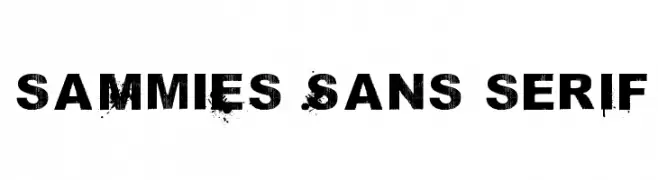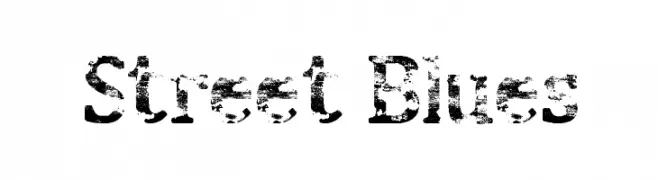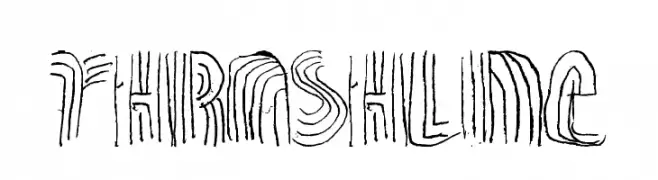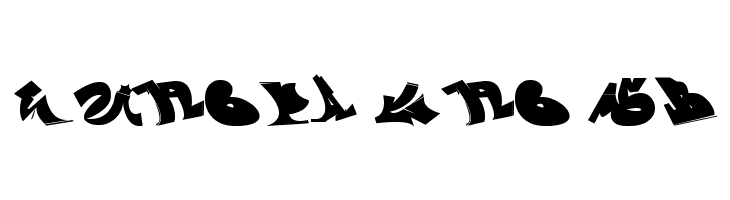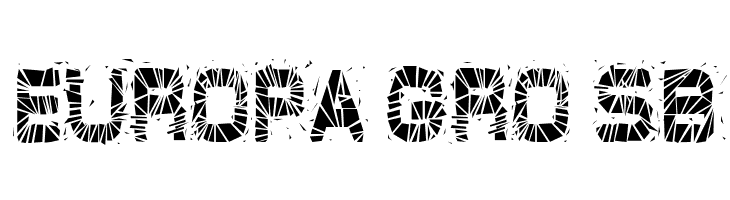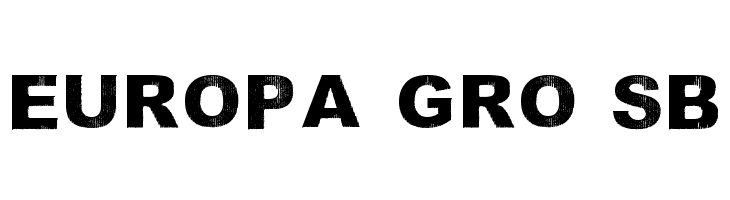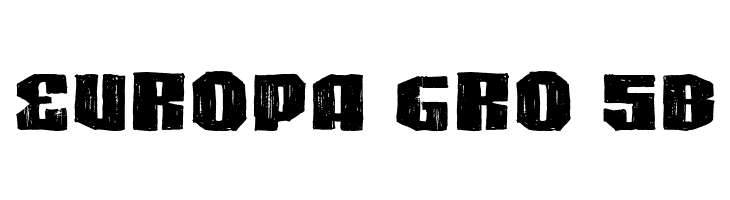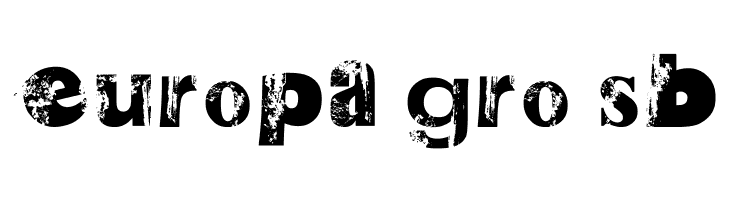
A distressed, grunge font with a torn, edgy appearance.
A bold, graffiti-inspired font with dynamic, angular strokes.
A bold, shattered glass effect font with dynamic, angular lines.
A bold, distressed font with a grunge texture, perfect for impactful designs.
A distressed, grunge-style font with a textured, urban appearance.
A bold, distressed font with a grunge, urban aesthetic.
A bold, hand-drawn font with dynamic, parallel lines for an energetic look.